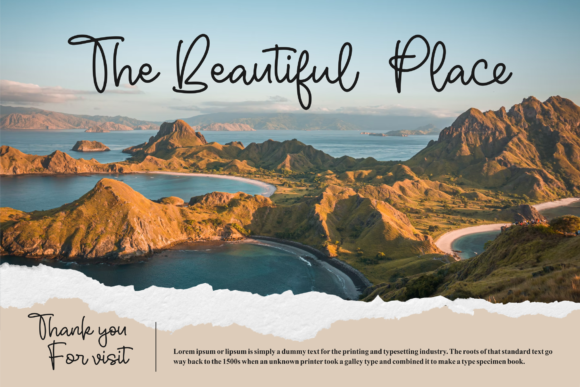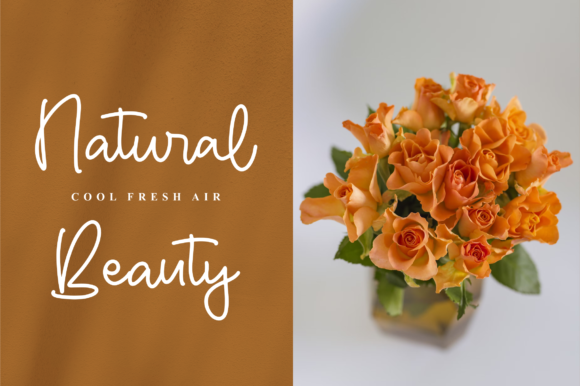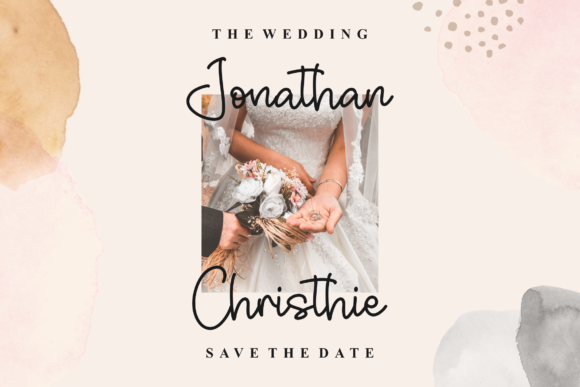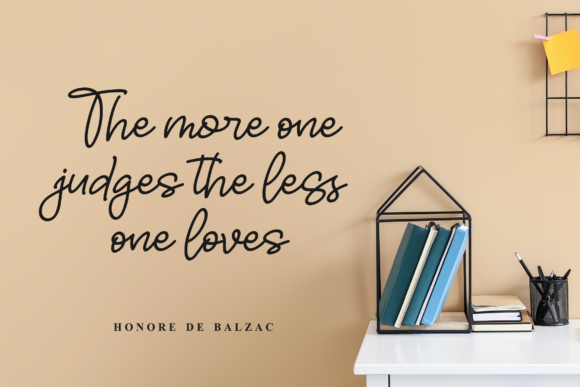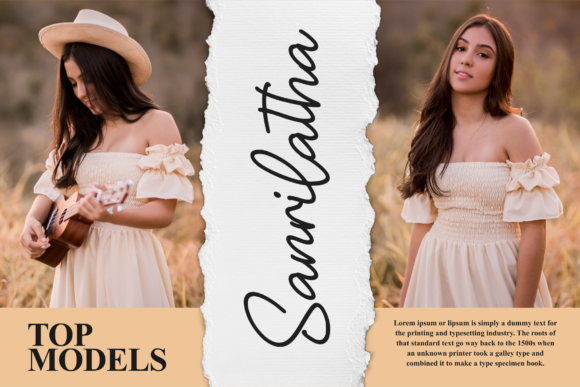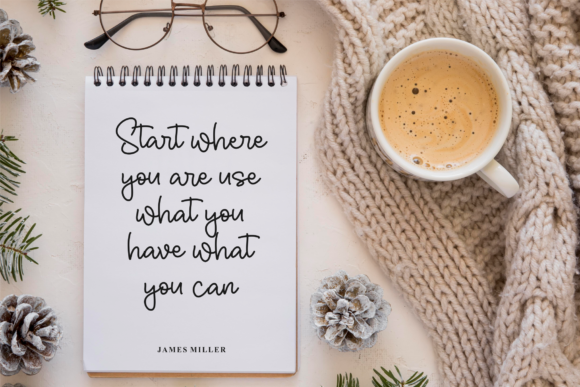
Introducing Airfield Font: The Perfect Handwritten Font for Your Creative Projects
Are you a designer or crafter looking for a font that adds a relaxed touch to your creations? Look no further than Airfield Font, a simple, quirky, and adaptable handwritten font that’s perfect for a wide range of projects. With its informal style and casual vibe, Airfield Font is sure to become a go-to choice for anyone looking to add a personal touch to their work.
What Makes Airfield Font So Special?
Airfield Font is a unique and versatile font that’s designed to bring a sense of informality and playfulness to your designs. Its handwritten style is perfect for creating a sense of warmth and approachability, making it ideal for projects that require a personal touch. Whether you’re working on a logo, branding materials, or craft projects, Airfield Font is the perfect choice.
Key Features of Airfield Font
- Simple and Quirky Design: Airfield Font has a simple, yet quirky design that’s perfect for adding a touch of personality to your projects.
- Adaptable: This font is highly adaptable and can be used for a wide range of projects, from logos and branding materials to craft projects and more.
- PUA Encoded: Airfield Font is PUA encoded, which means you can access all glyphs and swashes with ease. This makes it easy to customize your text and add unique touches to your designs.
- Handwritten Style: The handwritten style of Airfield Font gives it a warm and personal feel that’s perfect for creating a sense of connection with your audience.
Uses for Airfield Font
Airfield Font is a versatile font that can be used for a wide range of projects, including:
- Logo Design: Airfield Font is perfect for creating unique and memorable logos that stand out from the crowd.
- Branding Materials: Use Airfield Font to create branding materials that have a personal touch, such as business cards, letterheads, and more.
- Craft Projects: Airfield Font is perfect for craft projects, such as making cards, scrapbooking, and more.
- Social Media Graphics: Use Airfield Font to create social media graphics that have a personal touch and stand out from the crowd.
Why Choose Airfield Font?
There are many reasons why Airfield Font is a great choice for designers and crafters, including:
- Unique Design: Airfield Font has a unique design that’s sure to stand out from the crowd.
- Easy to Use: This font is easy to use and can be accessed with ease, thanks to its PUA encoding.
- Versatile: Airfield Font is highly versatile and can be used for a wide range of projects.
Airfield Font is a simple, quirky, and adaptable handwritten font that’s perfect for adding a relaxed touch to your designs. With its informal style and casual vibe, this font is sure to become a go-to choice for designers and crafters. Its PUA encoding makes it easy to access all glyphs and swashes, and its versatility makes it perfect for a wide range of projects. Whether you’re working on a logo, branding materials, or craft projects, Airfield Font is the perfect choice.